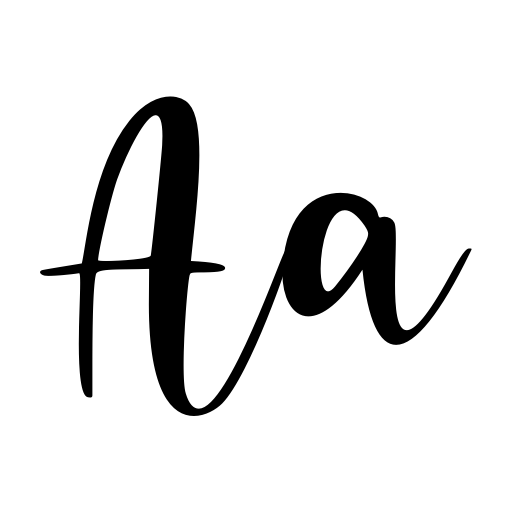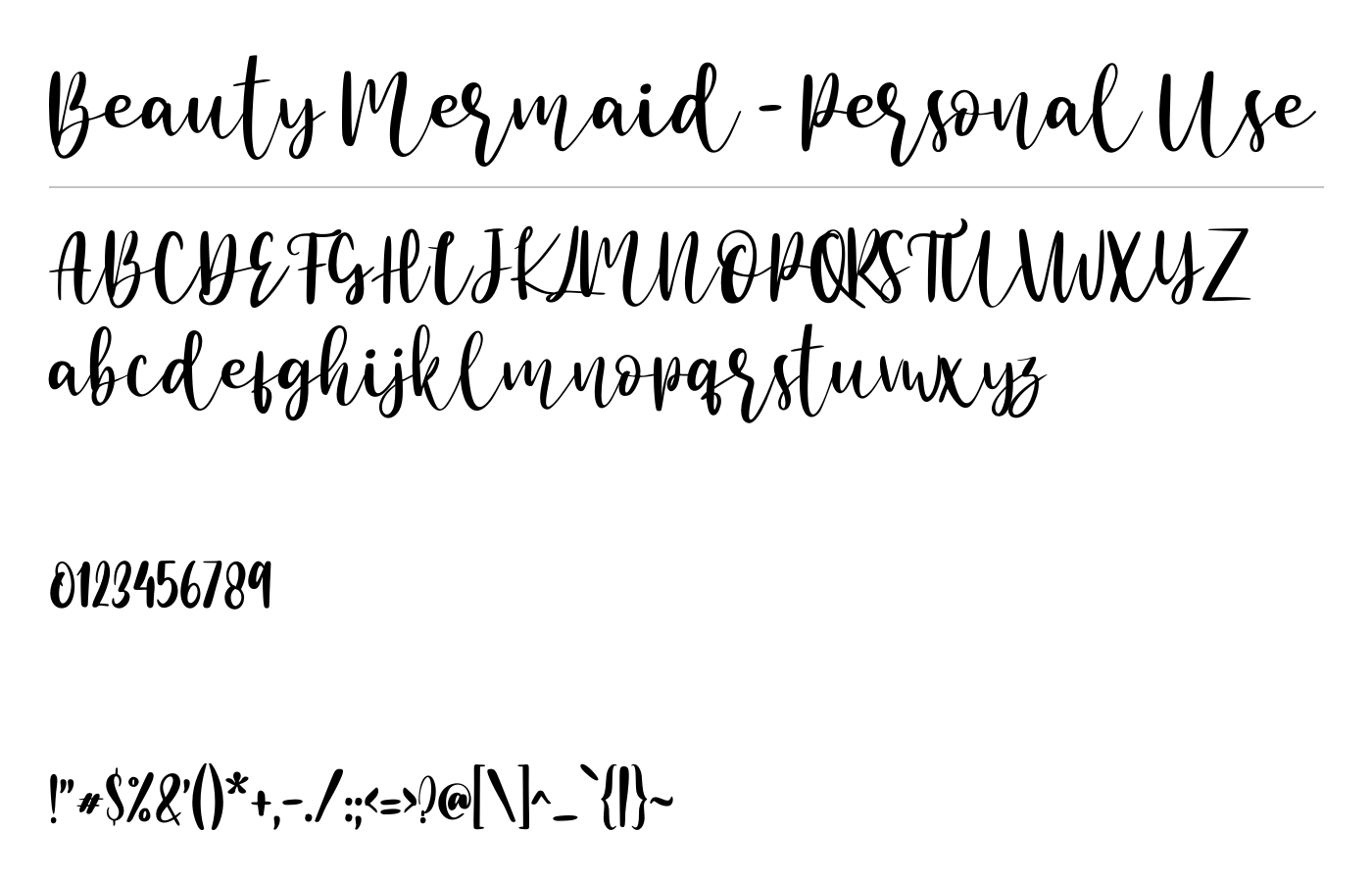
Beauty Mermaid is an elegant, playful script font with a hand-lettered feel, featuring a medium weight and a balanced x-height that ensures good readability. Its smooth, flowing strokes with gentle contrast and distinctive letter shapes bring a charming, whimsical personality, making it ideal for creative branding, invitations, and stylish headlines. This font works beautifully for fashion, beauty, and lifestyle projects where a personal, artistic touch is desired.